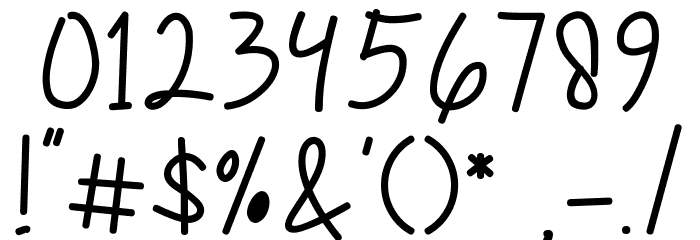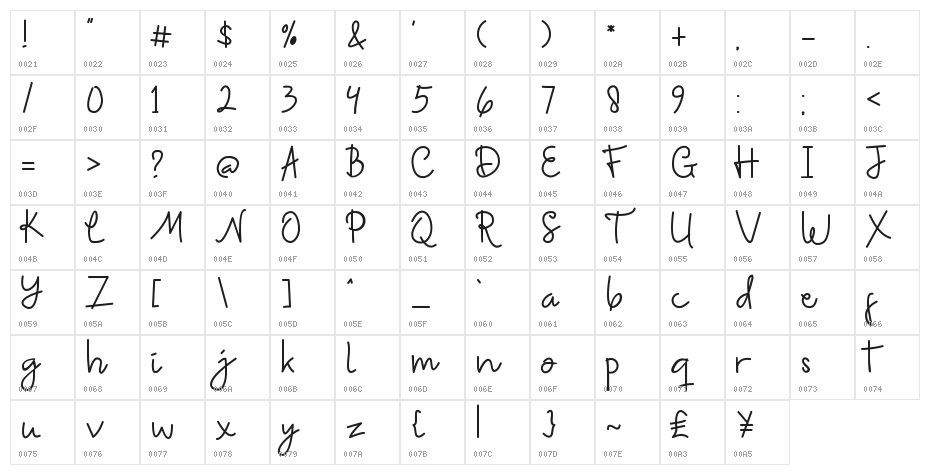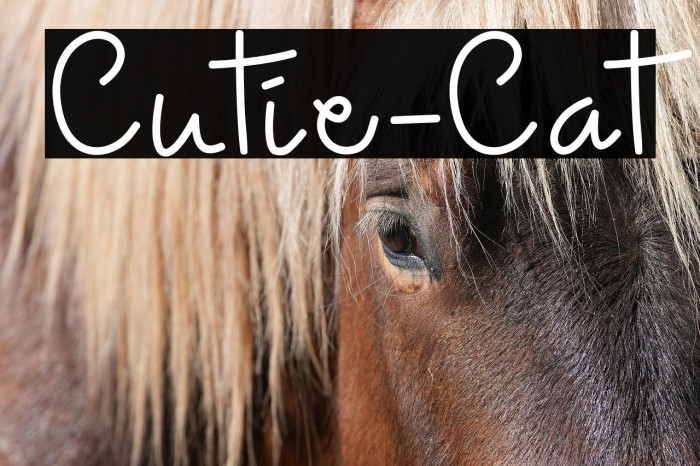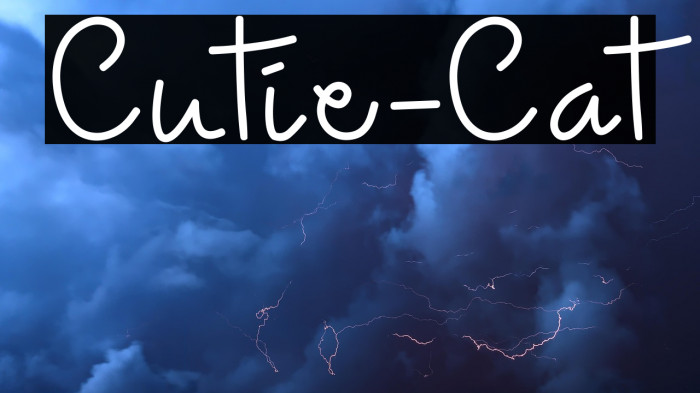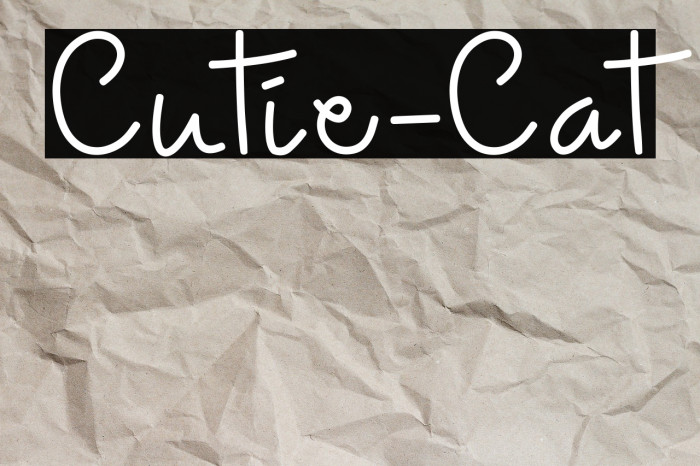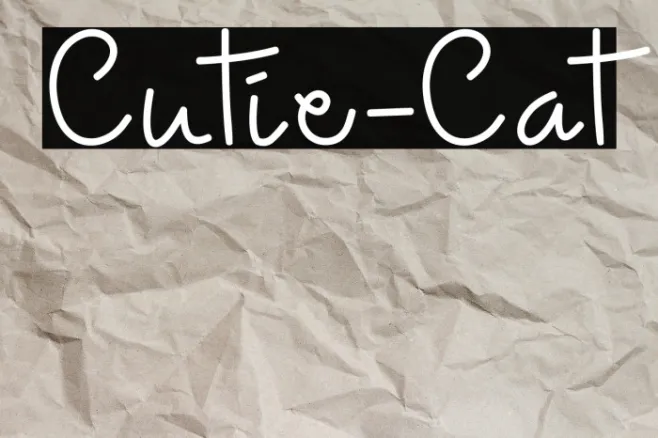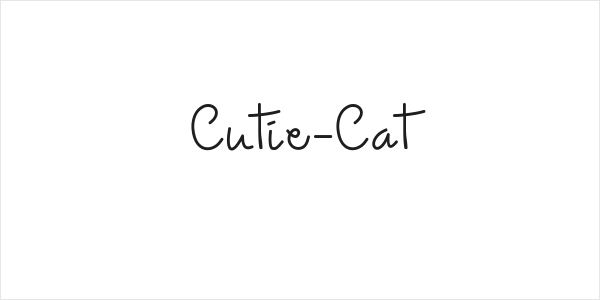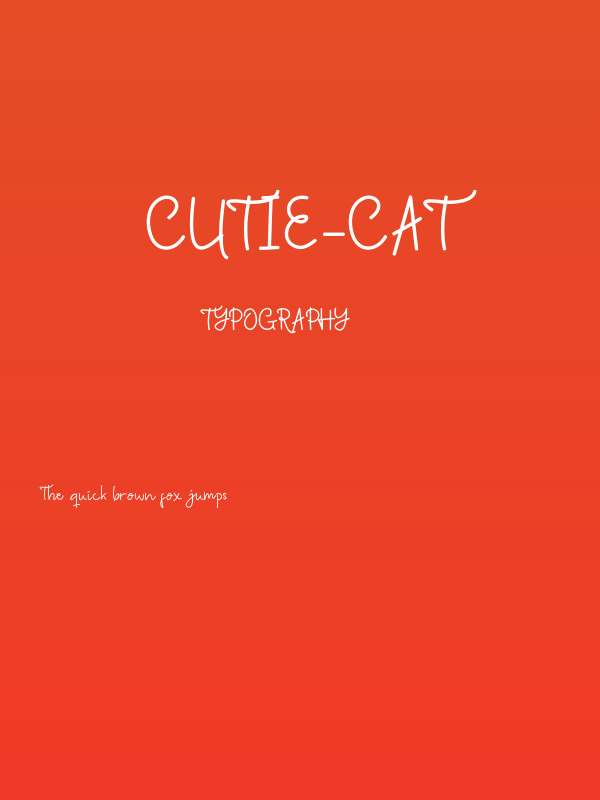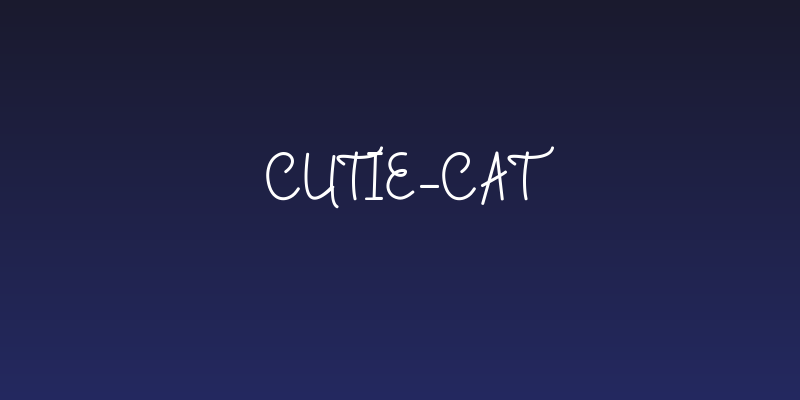
Cutie-Cat Font
Cutie-Cat Description
This playful and whimsical font features a handwritten style with a casual, friendly appearance. The letters are characterized by their smooth, flowing lines and slightly irregular shapes, giving them a personal and informal touch. The uppercase and lowercase letters maintain a consistent style, with rounded edges and a slight slant that adds to the font's dynamic feel. The numerals and special characters are equally expressive, maintaining the same lively and approachable aesthetic. This font's overall design is both charming and versatile, making it suitable for a variety of creative projects.